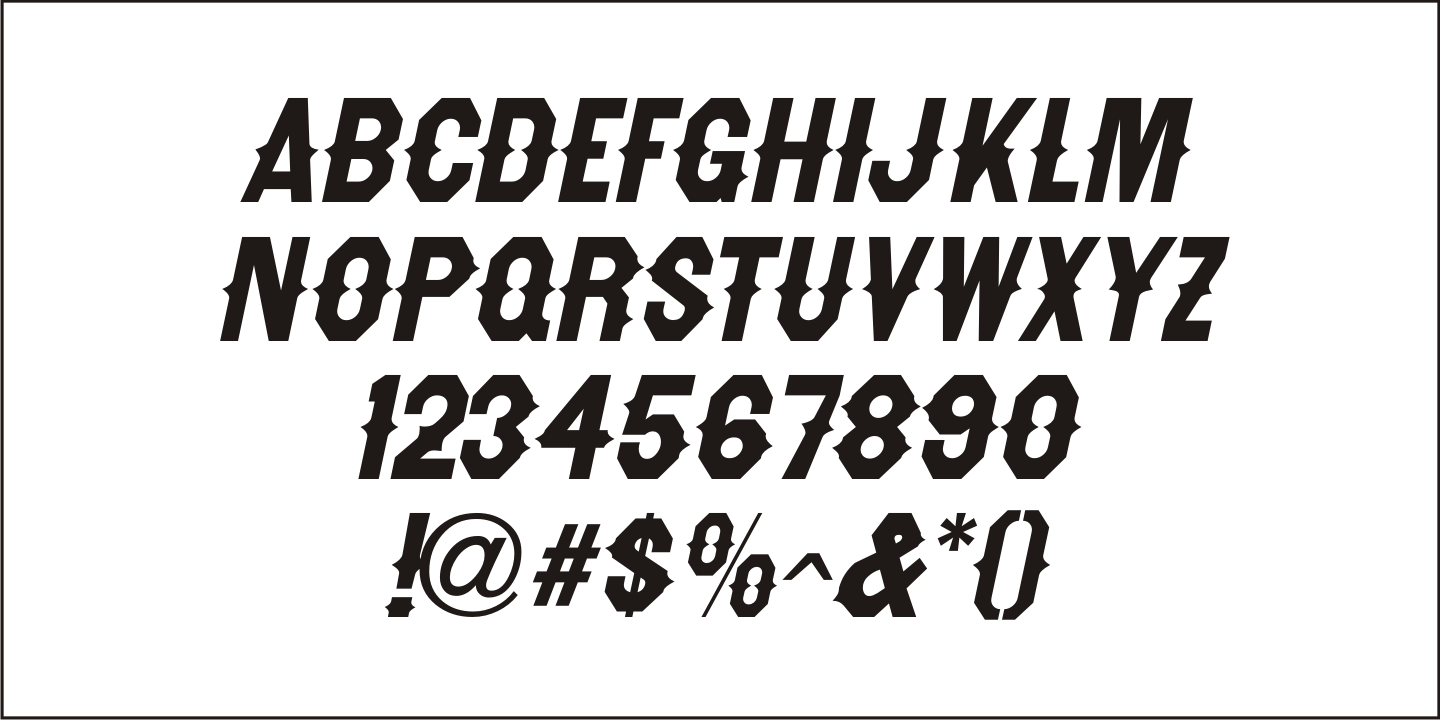
Spurwood JNL Font Free Download is a beautiful serif typeface that merges vintage charm with contemporary style. Its clean lines and graceful curves make it perfect for editorial design, branding, packaging, and sophisticated digital content.
Ideal for projects that require both readability and personality, Spurwood JNL Font Free Download enhances logos, headlines, invitations, and print materials with a timeless elegance. Its versatile nature fits a variety of industries including fashion, publishing, and lifestyle.